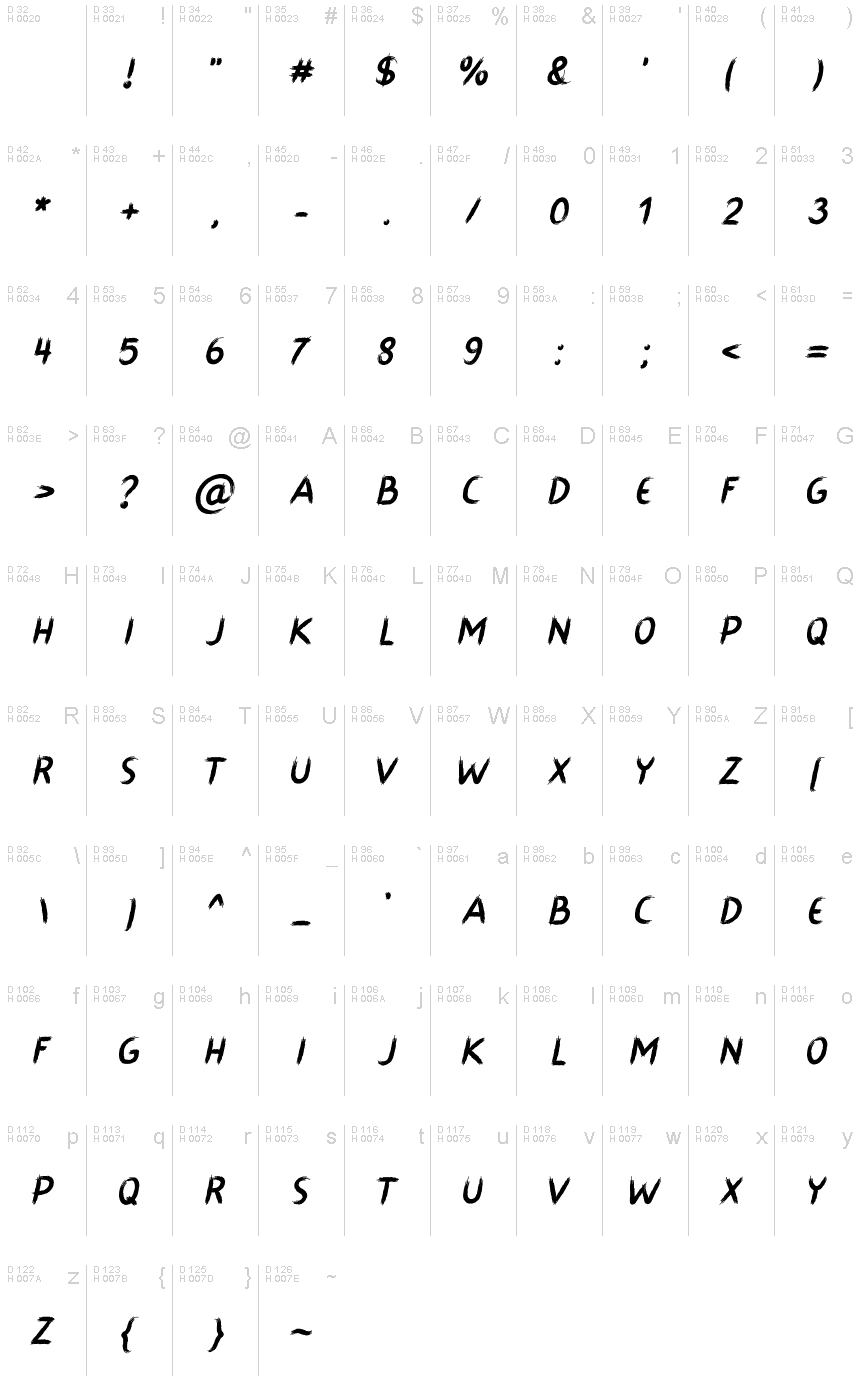
MOUNTIS Italic
Mountis Italic is a captivating brush font that adds a touch of elegance and personality to any project. With its semi-bold weight, this font is perfect for creating eye-catching headlines, titles, and logos that demand attention.
Its italic style adds a sense of movement and flow, making it suitable for designs that aim to stand out from the crowd. Whether you're working on branding for a fashion label, creating invitations for a stylish event, or designing an edgy album cover, Mountis Italic will bring your projects to life with its unique brush-inspired design.